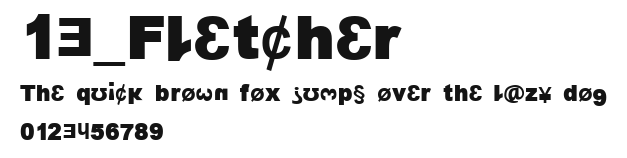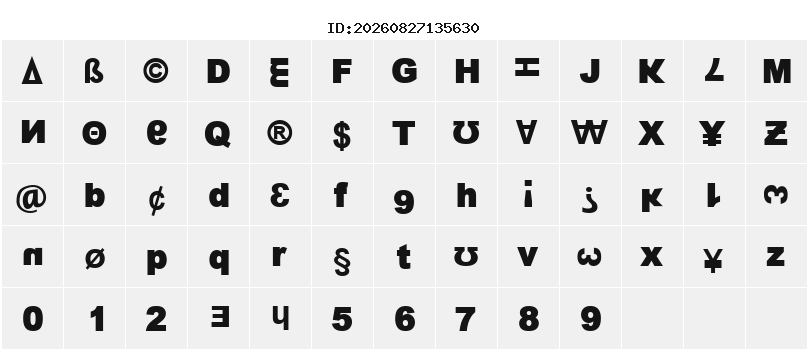
• Font Name: 13_Fletcher
• Full Font Name: 13_Fletcher
• Designer: Zane Townsend
• Manufacturer: 13th Degree
About 13_Fletcher.ttf
13_Fletcher.ttf is a modern, elegant sans-serif font designed for ultimate readability and visual harmony. Perfect for branding, headlines, web design, and print materials.